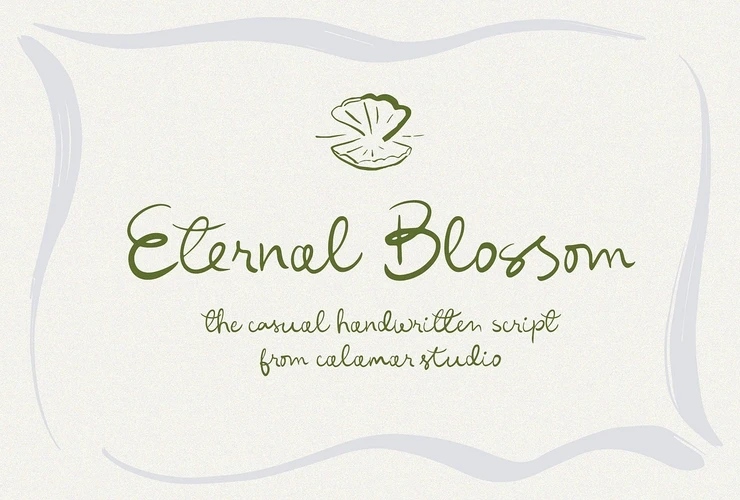
Introducing Eternal Blossom: The Perfect Handwritten Script for the 2024-2025 Wedding Season
Discover the elegance and charm of Eternal Blossom, the newest trendy handwritten font designed to elevate your design projects for the 2024-2025 wedding season. Whether you’re creating wedding invitations, menus, modern wall art, Instagram posts, quotes, or branding materials, Eternal Blossom is the perfect choice to add a touch of sophistication and style.
Key Features of Eternal Blossom
Eternal Blossom is crafted to meet the needs of designers seeking a beautiful and versatile handwritten script. Here are some of its standout features:
Comprehensive Character Set: Eternal Blossom includes a full set of uppercase and lowercase basic characters, numbers, punctuation, and a set of alternatives and ligatures.
Versatile Usage: This font is ideal for a wide range of design applications, from handwritten wedding invitations and modern wall art to Instagram posts and branding materials.
Enhance Your Designs with Eternal Blossom
Eternal Blossom is designed to make your text stand out with its trendy and elegant handwritten style. It is the perfect choice for designers who want to create captivating and stylish designs for the upcoming wedding season and beyond.